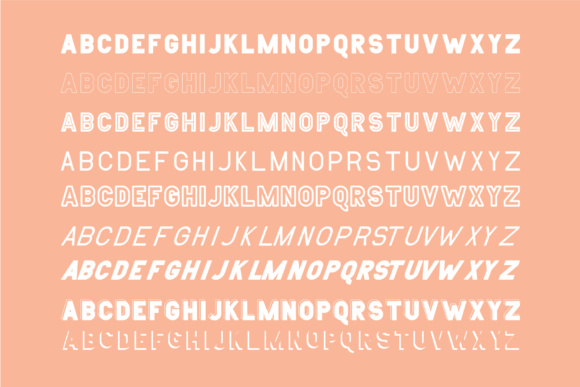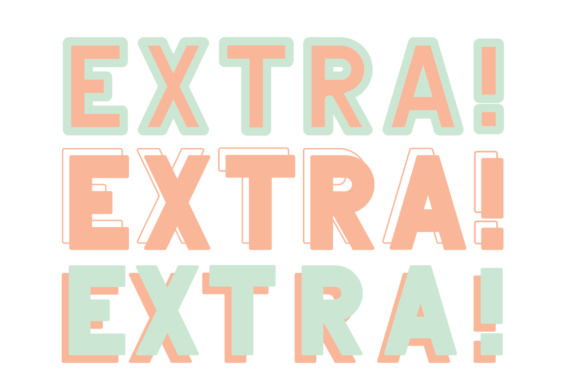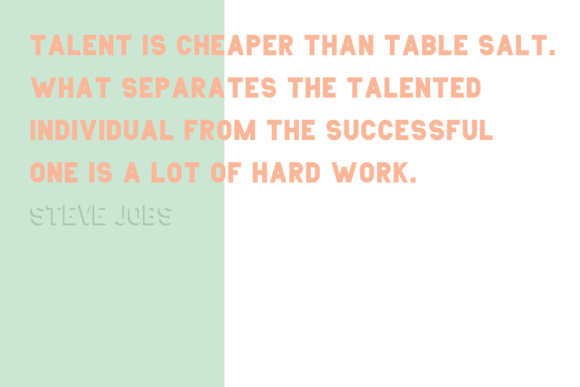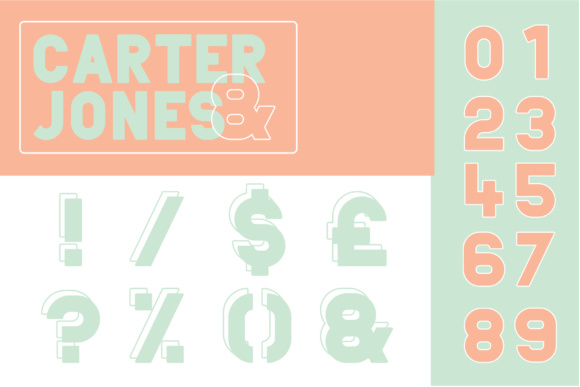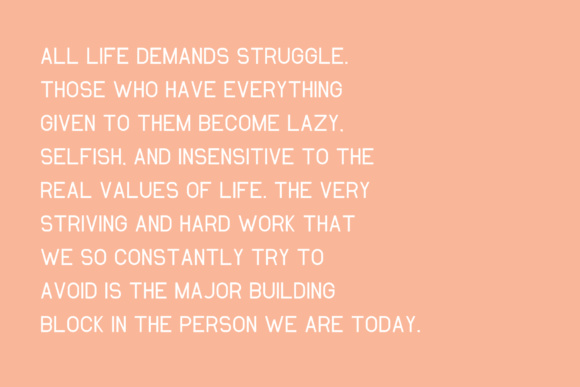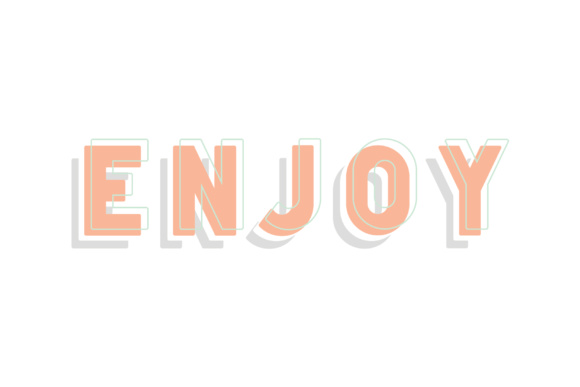
Unleashing the Depth of Typography
Have you ever stared at a beautiful typographic design, wondering what makes it so captivating? For designers, it’s often the subtle interplay of layers, textures, and negative space that elevates a simple message into a work of art. One of the most powerful tools in our arsenal is the right font – one that can add depth and visual interest to even the most straightforward layouts.
Enter the Helton Font, a stunning layered font designed to help you create typographic masterpieces that stop people in their tracks. With its intricate details and refined styles, Helton Font is the perfect companion for designers looking to elevate their work and push the boundaries of visual storytelling.
Whether you’re crafting a logo, a brochure, or a website, the Helton Font offers unparalleled versatility and flexibility. Its unique blend of style and functionality makes it an invaluable addition to any designer’s toolkit, helping you to create works that are not only visually stunning but also meaningful and effective.
Key Features of Helton Font
- Unique Characteristic: The Helton Font features a unique blend of modern and classic design elements, making it a versatile choice for a wide range of applications.
Helton Font Review
Overall, I found the Helton Font to be a solid choice for designers looking for a modern and elegant sans-serif font. ✨ The font’s clean lines and rounded edges give it a friendly and approachable feel, making it perfect for use in a variety of applications, from branding and marketing materials to digital products and interfaces.
- ✨ The font’s scalability is impressive, with clear and legible text at both large and small sizes.
- ✨ The font’s versatility allows it to be used in a range of contexts, from formal and professional to informal and playful.
- ✨ The font’s rounded edges and subtle curves give it a unique and distinctive feel.
However, there are some limitations to consider: ⚠️ The font may not be suitable for use in situations where a more dramatic or attention-grabbing font is required, and ⚠️ the font’s rounded edges may not be to everyone’s taste.
Overall, I would recommend the Helton Font to designers looking for a clean, modern, and versatile sans-serif font. While it may not be the best choice for every project, it is certainly a solid option to consider.
Tips for Getting the Most Out of Helton Font
Helton Font is ideal for creating elegant and sophisticated designs. Here are some tips to get the most out of it:
- Use it for titles and headings to add a touch of luxury.
- Pair it with a sans-serif font for a modern and sleek look.
Helton Font is perfect for:
- Luxury product packaging and branding.
What is the character set of the Helton Font?
The Helton Font includes a wide range of characters, including Latin, Greek, and Cyrillic scripts. It also includes various punctuation marks, numbers, and symbols. The font has a total of 750 characters, ensuring you have everything you need for your design projects.